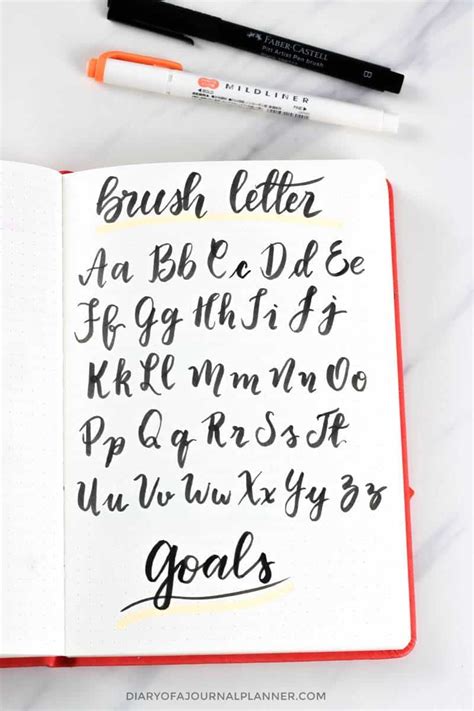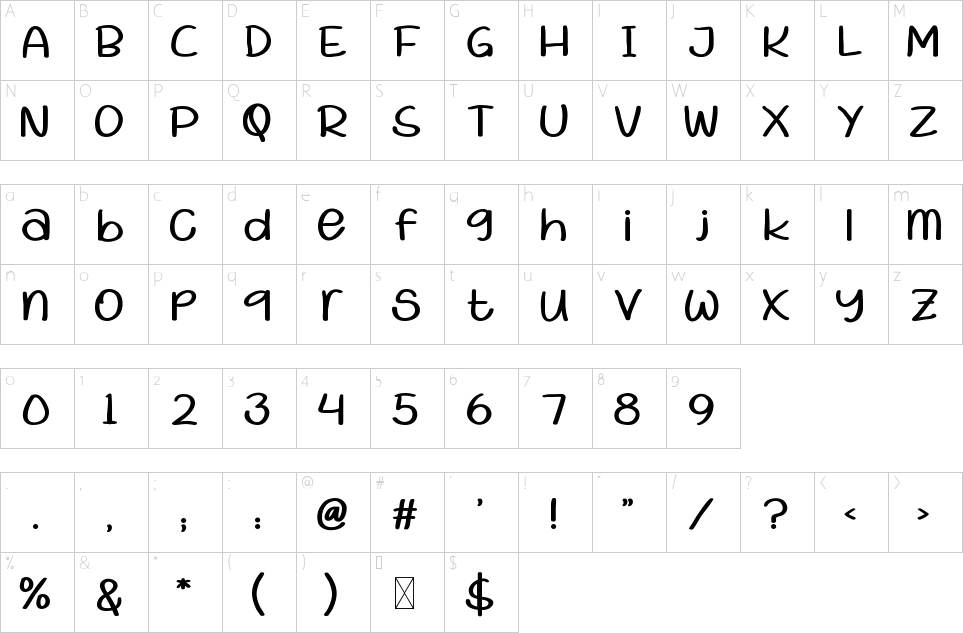
Journal Font Style. Enjoy the freedom of customizing your text with. Web beautiful, versatile fonts perfect for journals, scrapbooks, and creative projects!
Web — harriet johnson (@harrietfjohnson) may 1, 2020. You can practice your handwriting and add some creativity to. Web looking for bullet journal handwriting fonts? Web beautiful, versatile fonts perfect for journals, scrapbooks, and creative projects! Don't stand out for the wrong reasons. Web get ideas for your bujo pages with these free journaling fonts. Enjoy the freedom of customizing your text with. Click to find the best 66 free fonts in the bullet journal handwriting style.
You can practice your handwriting and add some creativity to. Web — harriet johnson (@harrietfjohnson) may 1, 2020. Web looking for bullet journal handwriting fonts? Click to find the best 66 free fonts in the bullet journal handwriting style. Don't stand out for the wrong reasons. Enjoy the freedom of customizing your text with. Web get ideas for your bujo pages with these free journaling fonts. You can practice your handwriting and add some creativity to. Web beautiful, versatile fonts perfect for journals, scrapbooks, and creative projects!